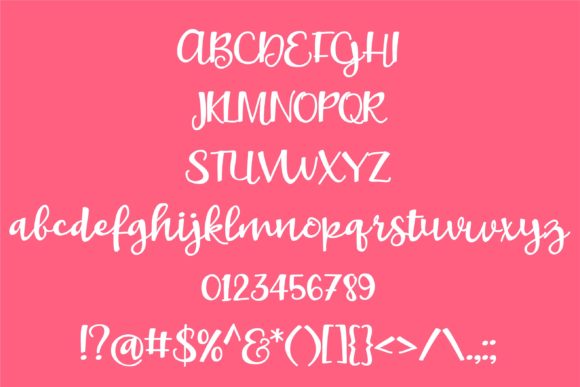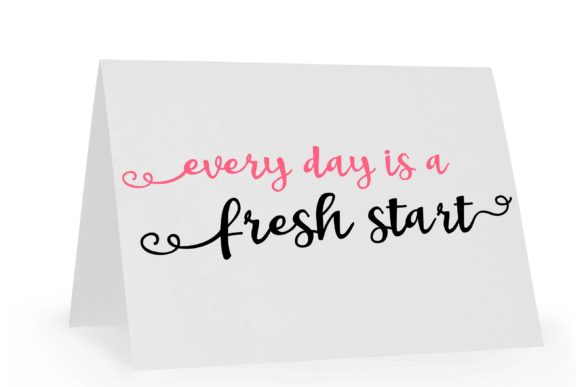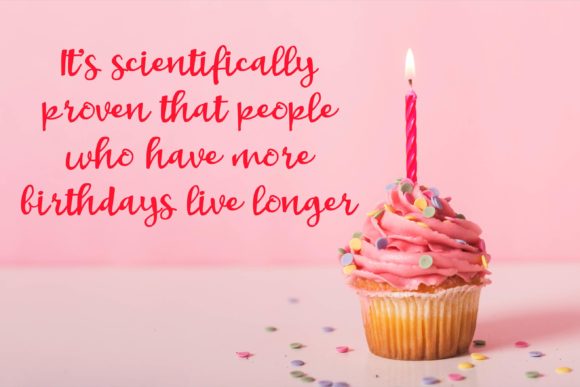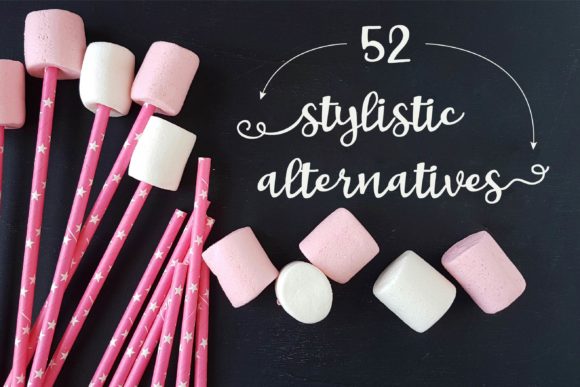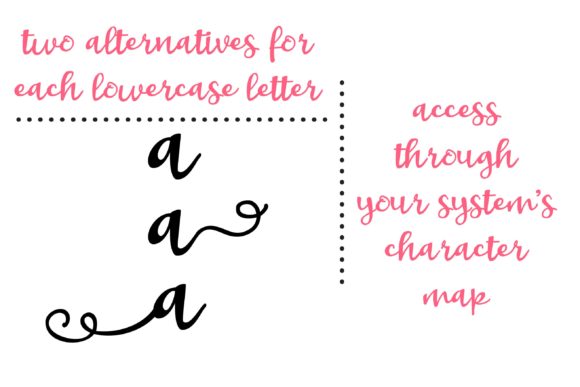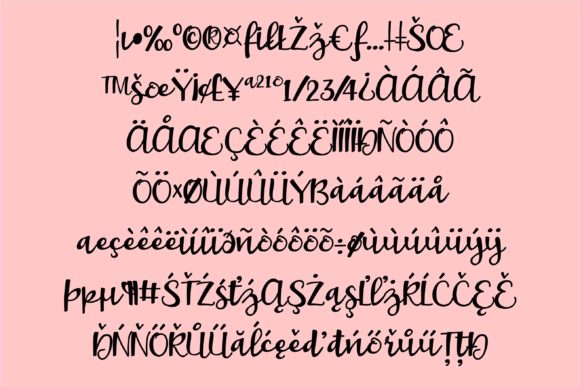
Whiplash Font
About Whiplash Font
Whiplash is a truly gorgeous and unique script that radiates authenticity. Fall in love with its playful and romantic charm!